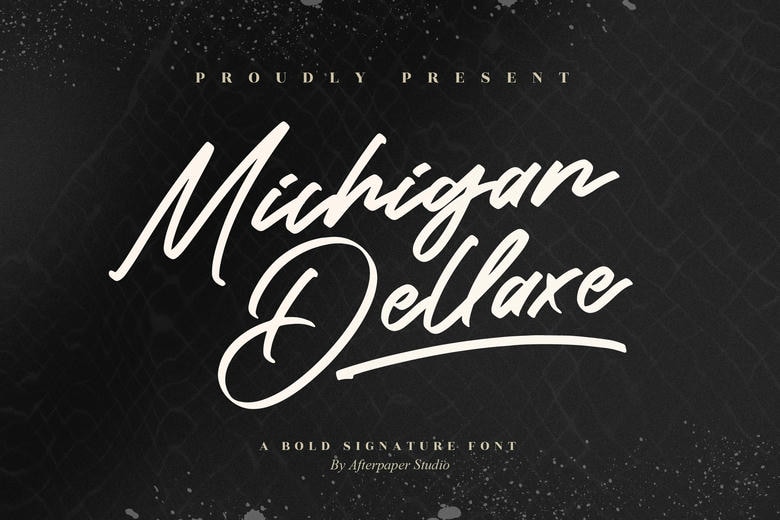
Michigan Dellaxe Font
Michigan Dellaxe is a beautiful handwritten font, carefully created to stand out. It keeps a classic calligraphic style but still looks modern and fresh. Try it out and see how it can enhance your projects.
Michigan Dellaxe Handwritten Script Font